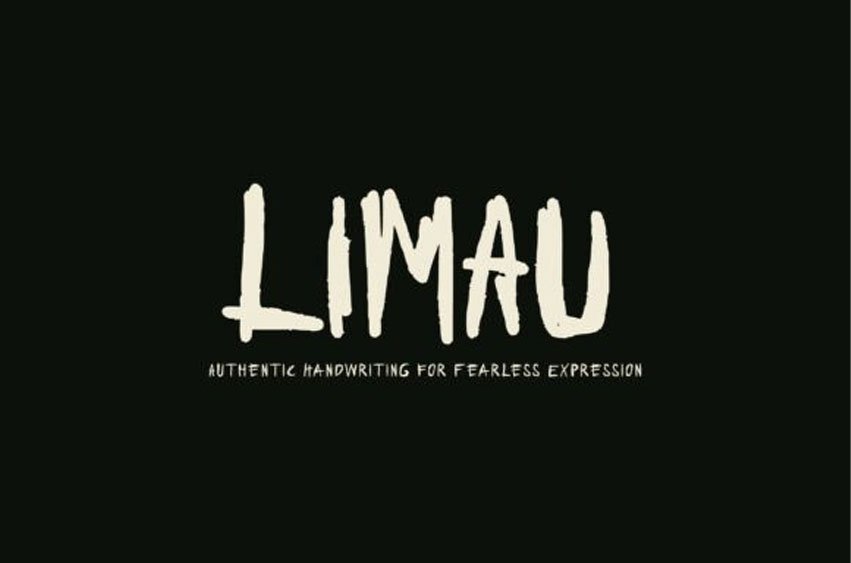
Limau Font is a raw, unapologetic handwritten font that exudes a rebellious spirit and unfiltered energy. Its jagged strokes and uneven lines are not flaws—they’re features. Every letter feels hand-scratched into the surface, echoing raw emotion, tension, and artistic defiance. Whether you’re designing for zines, streetwear, album covers, or protest posters, Limau doesn’t whisper—it shouts.
This uppercase-only font is a visual scream, capturing grit, honesty, and bold individuality. With its expressive, distressed texture, Limau invites designers to break the rules, amplify their message, and embrace the beauty of imperfection.